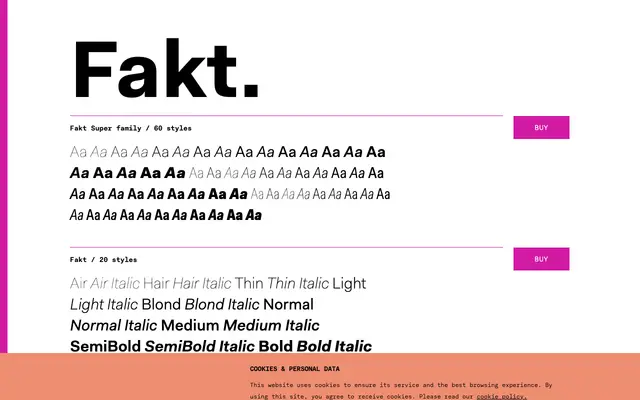
A large grotesque superfamily spanning 60 styles across three widths and ten weights, built for demanding text and display work.
Fakt is a grotesque sans available in Standard, SemiCondensed and Condensed widths, each running from Air to Black with matching italics across 20 styles per subfamily. The family carries an extensive OpenType feature set including small capitals, oldstyle figures, tabular figures, fractions and seventeen stylistic sets, giving designers considerable typographic control. Its neutral character and thorough width range make it well suited to complex publishing, branding and interface projects.
Fakt is a clean, neutral grotesque sans-serif with a broad weight range and multiple width variants, typical of contemporary European grotesque families designed for versatile text and display use.